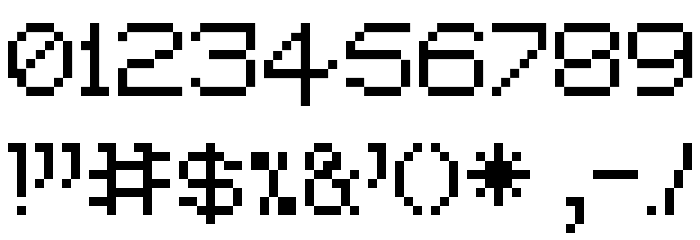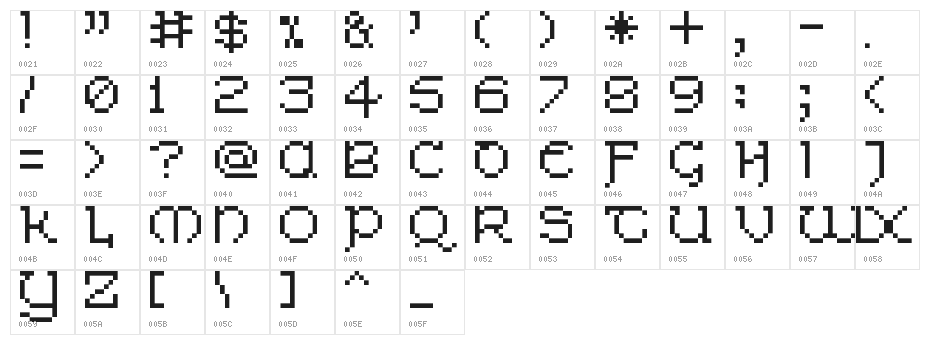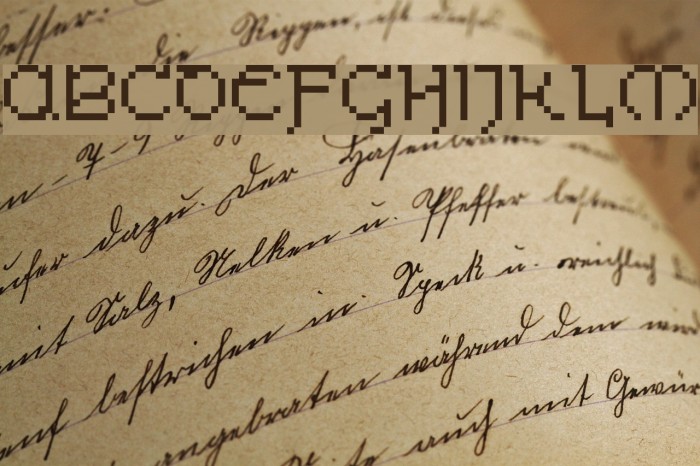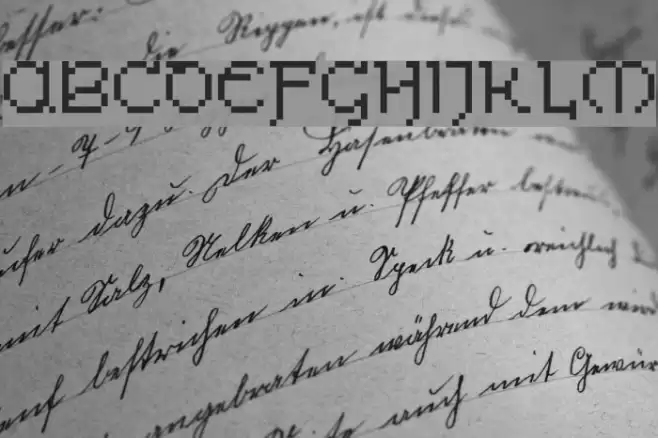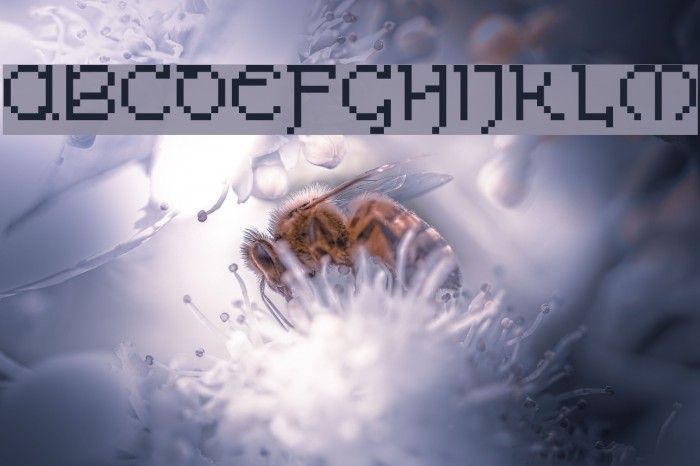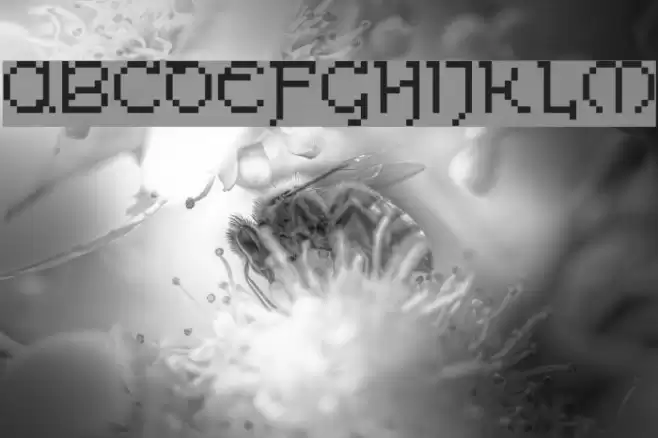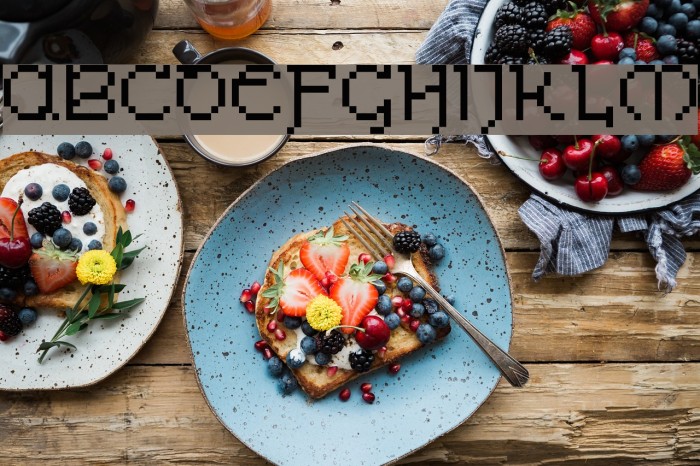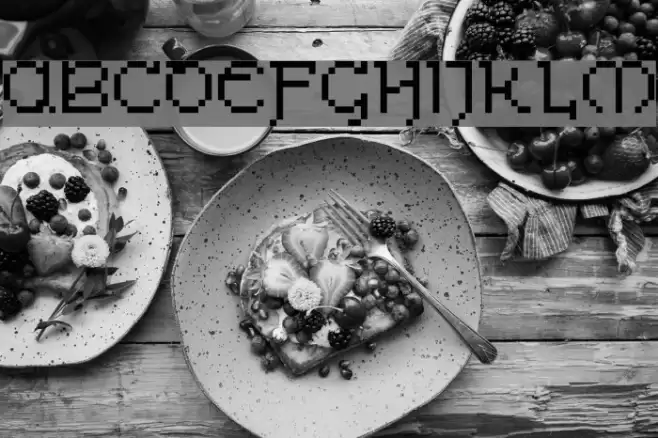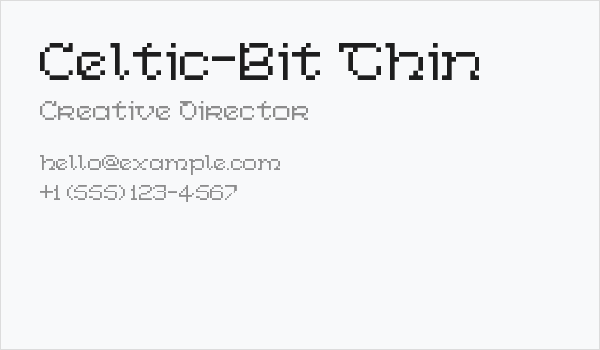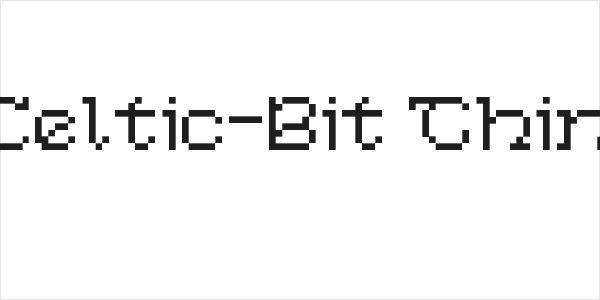
Celtic-Bit Thin Font
Celtic-Bit Thin Description
This font features a pixelated, blocky design reminiscent of early digital or video game typography. Each character is constructed with a grid-like structure, giving it a distinct retro and digital aesthetic. The uppercase and lowercase letters maintain a consistent height, with minimal variation in stroke width, emphasizing a uniform appearance. The numerals and special characters follow the same pixelated style, ensuring cohesion across all glyphs. This font's unique style is both nostalgic and modern, making it suitable for projects that require a digital or tech-inspired look.
| Use Case | Logos, Headlines, Digital Art |
| Proposed Projects | Ideal for video game design, tech-themed posters, digital art projects, and retro-style branding. |